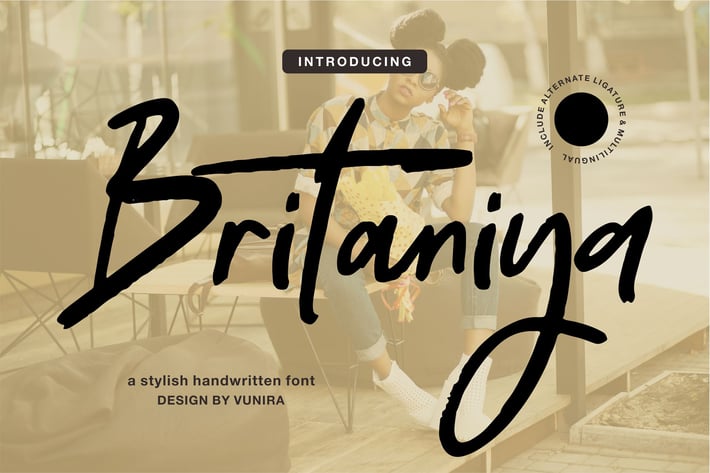
Britaniya | A Stylish Handwritten Font
Britaniya | A Stylish Handwritten Font with a calligraphy style, So beautiful on invitation like greeting cards, branding materials, business cards, quotes, posters, and more!